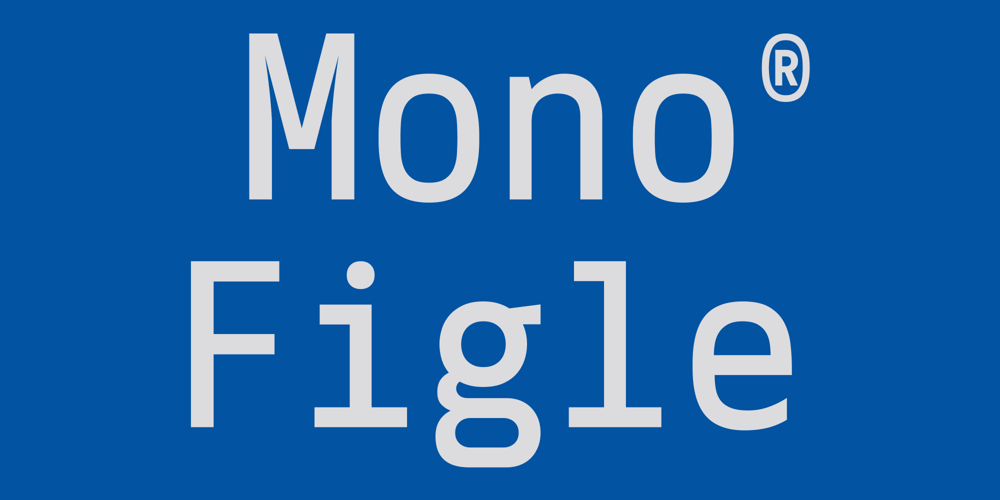
Mono Figle
Mono Figle font
Mono Figle Font Family was designed by Wisnu Cipto Wibowo and published by Fateh.Lab. Mono Figle contains 3 styles and family package options. Has Born and grown from fateh.lab headquarters. This is our latest masterpiece!. Mono Figle is a monospaced font with a consistent and dynamic style. Very strong yet soft, and made with modern style standards in today’s increasingly wild digital era.Has a superior weight for Logos, studio design needs, posters, social media, headlines, magazine headlines, large print formats – and anywhere you want to see it. This is the answer to your search!